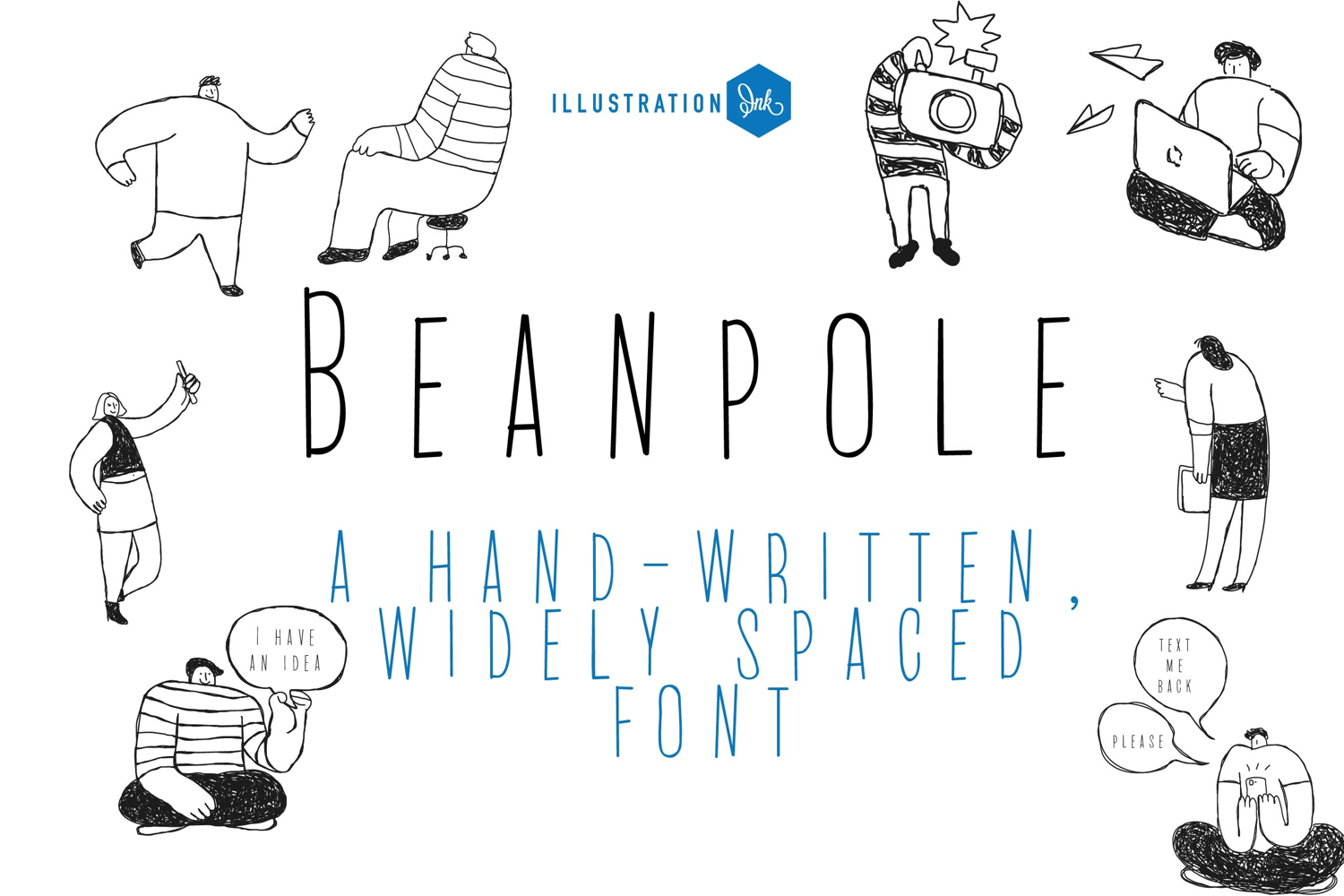
Beanpole Tall Handwritten Sans Serif Font
Beanpole is a tall, slim handwritten sans serif font with a clean modern look, perfect for quotes, branding, stationery, crafts, labels, and minimalist designs.
• The letters are not perfectly uniform in size or shape.
• There may be slight variations in the spacing between letters and words.
• The font may have a "wiggly" or "squiggly" appearance.
• The font may be difficult to read at small sizes.